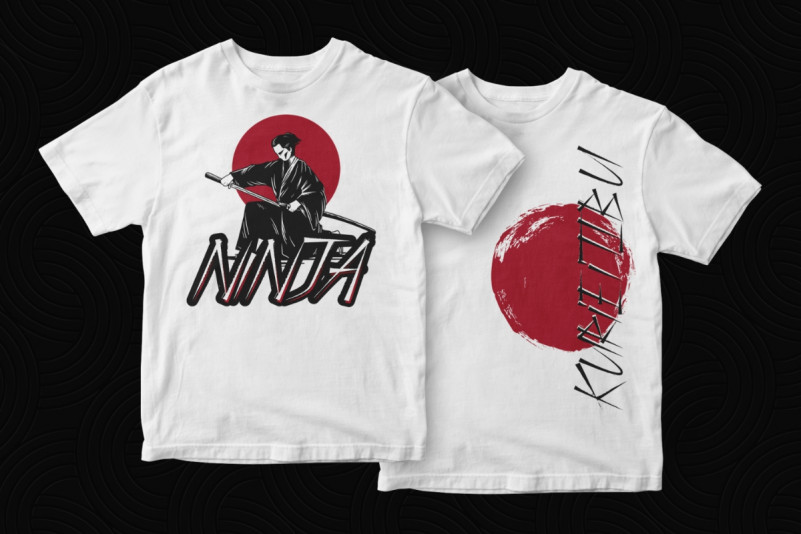
Yakuza Font
Yakuza Display Font
This is a brush font with special Japanese look style made by NoahType. This font will add a personal handwriting look twist to any design project. This font is crafted carefully in every its single scratch, created to look as close to a natural handwritten script so that it can create the perfect combination on each glyph. This brush font is for anyone who are needing of special Japanese look on their designs. This brush font will be awesome for motor club, sport, music, video, games, apps, Japanese related, korean, asian, karate, fight, kung fu etc
Yakuza Display Font includes full set of Uppercase and Lowercase Basic Characters, Numerals and Punctuation. Also it contains ligatures and a lot of alternates characters to perfectly make natural writing look that add more beautiful and aesthetic fonts to perfect your extraordinary project. Sandblaster will be awesome for logotype, invitation, cards, flyer, headline, promotion, social media posts etc